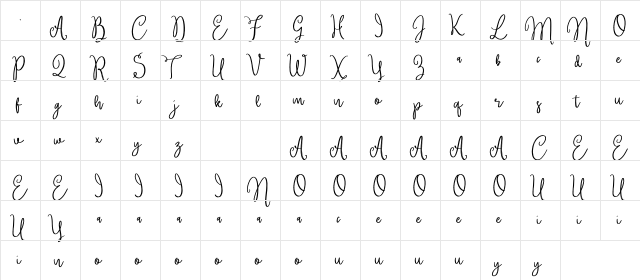
Brittney Regular
Design Context for Brittney Typeface
Brittney is a composed and adaptable typeface that performs quietly and consistently across a wide range of design contexts.